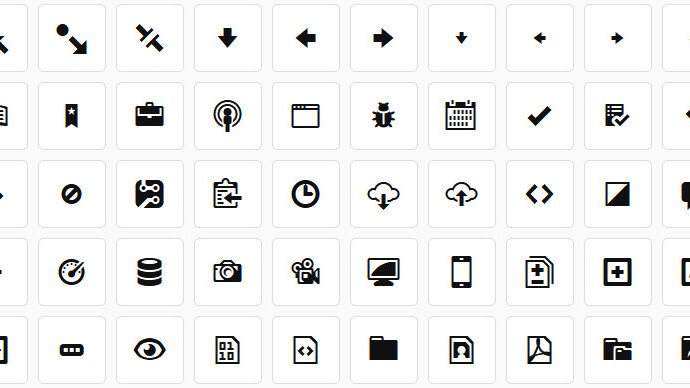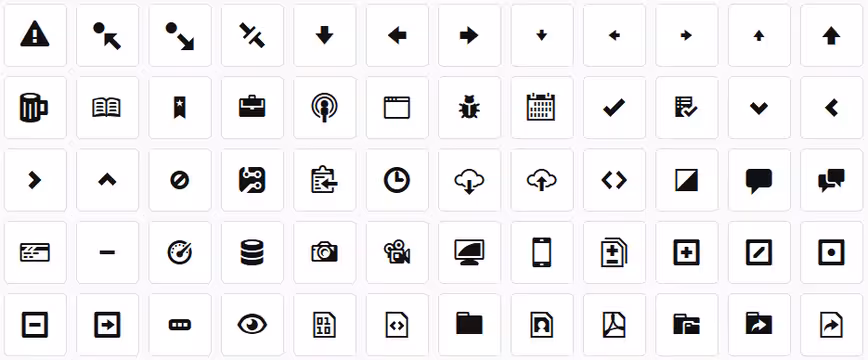
GitHub opens its own ‘Octicons’ icon font for anyone to use
Way back in 2012, social coding community GitHub launched its own icon font called Octicons, leveraging what it called at the time “CSS3 techniques like rounded corners, gradients, and @font-face across all pages of the site.”
This was designed to be as much about aesthetics for the emerging retina-screened products as it was about site performance, and was used across many of GitHub’s sites, including its hackable text editor Atom. Now, GitHub has announced it’s making them available for anyone and everyone to download and use. You can read more about Octicons here.